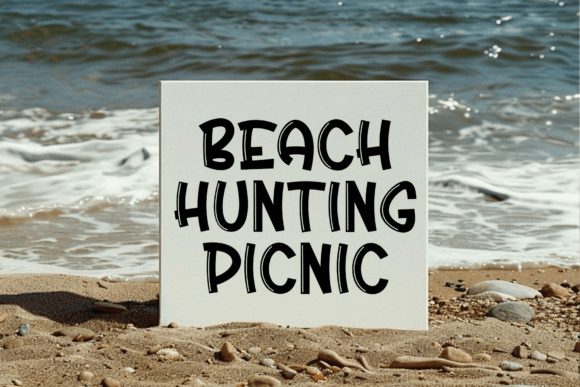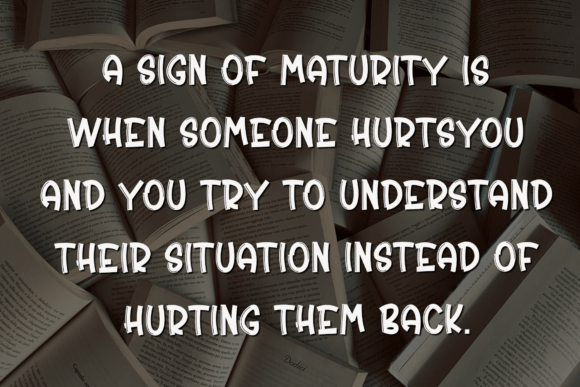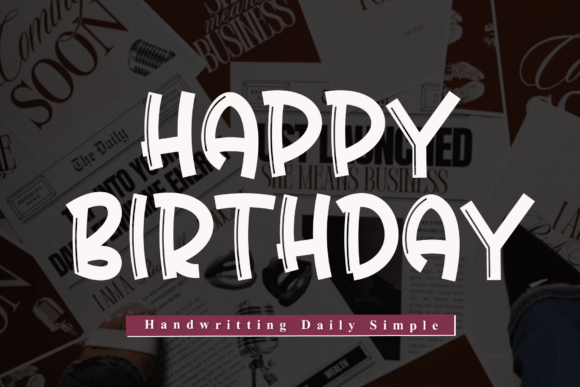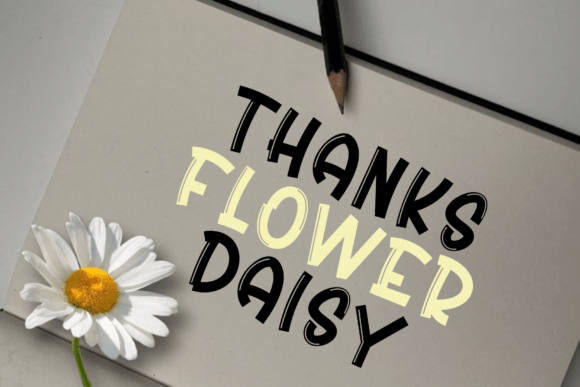
Unleash Your Creativity with Break Dance Font: The Ultimate Display Font for Bold Designs
Are you tired of using the same old fonts for your designs? Do you want to add a dash of personality and flair to your projects? Look no further than Break Dance Font, a bold and energetic handwritten display font that’s sure to make your message impossible to ignore. In this article, we’ll dive into the features and benefits of Break Dance Font, and explore how it can elevate your designs to the next level.
The Power of Break Dance Font
Break Dance Font is a hand-crafted display font that exudes a fun, spontaneous vibe. Its chunky, expressive letterforms and slightly uneven, organic edge give it a unique and playful look that’s perfect for designs that need a confident, playful punch. Whether you’re working on a poster, t-shirt, or social media visual, Break Dance Font is sure to grab attention and leave a lasting impression.
Inspired by Marker Lettering
One of the standout features of Break Dance Font is its hand-crafted style, which mimics the look of marker lettering. This gives it a distinctly human feel that’s perfect for designs that need a personal touch. The font’s bold and chunky letterforms are reminiscent of marker-drawn letters, adding a touch of whimsy and playfulness to any design.
Break Dance Font is incredibly versatile, making it perfect for a wide range of projects. Some of the design applications where Break Dance Font really shines include:
- Posters: Add a bold and eye-catching headline to your poster with Break Dance Font.
- T-shirts: Create a fun and playful design for your t-shirt with Break Dance Font.
- Adventure-themed graphics: Add a sense of excitement and adventure to your graphics with Break Dance Font.
- Children’s books: Bring your story to life with Break Dance Font’s playful and energetic letterforms.
- Branding and packaging: Use Break Dance Font to add a touch of personality to your brand and packaging.
- Social media visuals: Stand out on social media with Break Dance Font’s bold and attention-grabbing letterforms.
Why Choose Break Dance Font?
So why should you choose Break Dance Font for your next design project? Here are just a few reasons:
- Unique and playful: Break Dance Font adds a touch of personality and flair to any design.
- Attention-grabbing: The font’s bold and chunky letterforms are sure to grab attention and leave a lasting impression.
- Versatile: Break Dance Font is perfect for a wide range of design applications.
In conclusion, Break Dance Font is a bold and energetic handwritten display font that’s perfect for designers and crafters who want to add a touch of personality and flair to their designs. With its chunky, expressive letterforms and slightly uneven, organic edge, Break Dance Font brings a fun, spontaneous vibe to any project. Whether you’re working on a poster, t-shirt, or social media visual, Break Dance Font is sure to make your message impossible to ignore. So why wait? Download Break Dance Font today and start creating bold and eye-catching designs that stand out from the crowd!